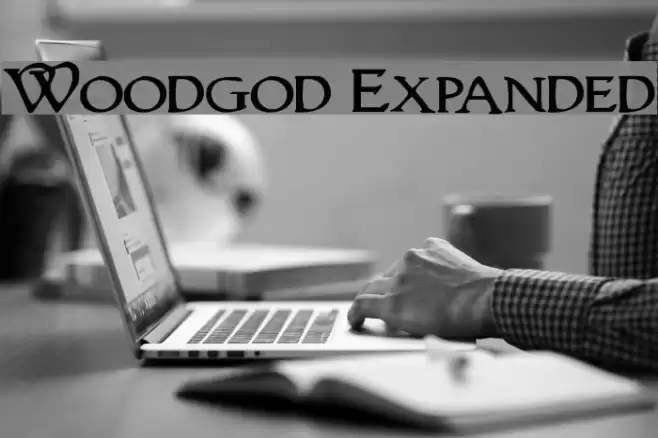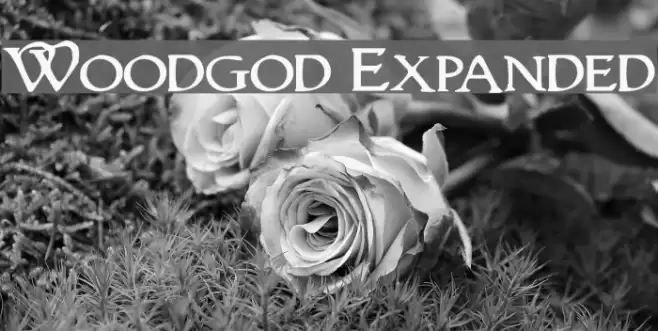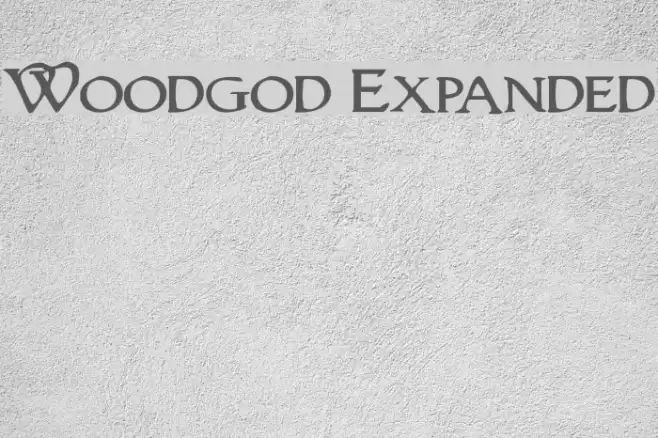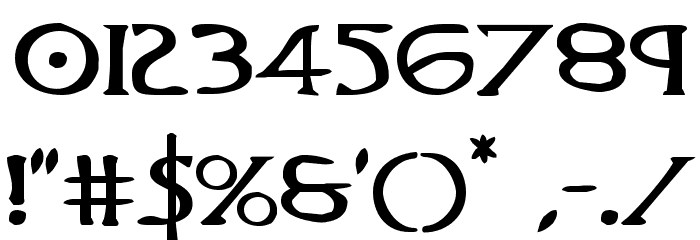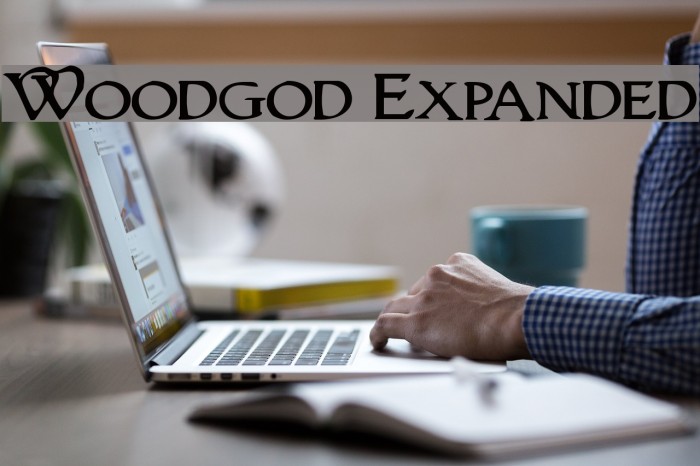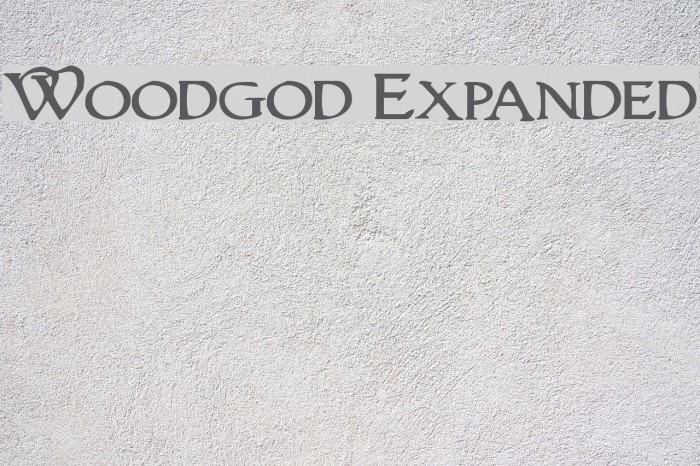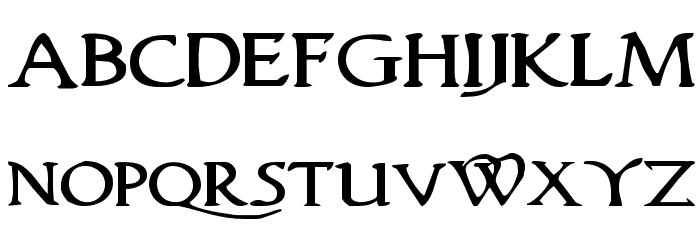
Woodgod Expanded Font
Woodgod Expanded Description
This font features a unique blend of medieval and fantasy elements, characterized by its decorative and slightly whimsical style. The uppercase letters are bold and commanding, with intricate curves and flourishes that add a touch of elegance. The lowercase letters maintain a consistent style, offering a harmonious balance between readability and artistic flair. Numbers and special characters are equally stylized, ensuring a cohesive look across all text. The font's expanded width gives it a grand presence, making it ideal for projects that require a strong visual impact.
A decorative font with medieval and fantasy influences, featuring bold, expanded characters from Uncategorized fonts.
- Proposed Projects: Ideal for fantasy-themed projects, book covers, game titles, and branding that requires a touch of elegance and whimsy.
- Use Case: Headlines, Logos, Book covers